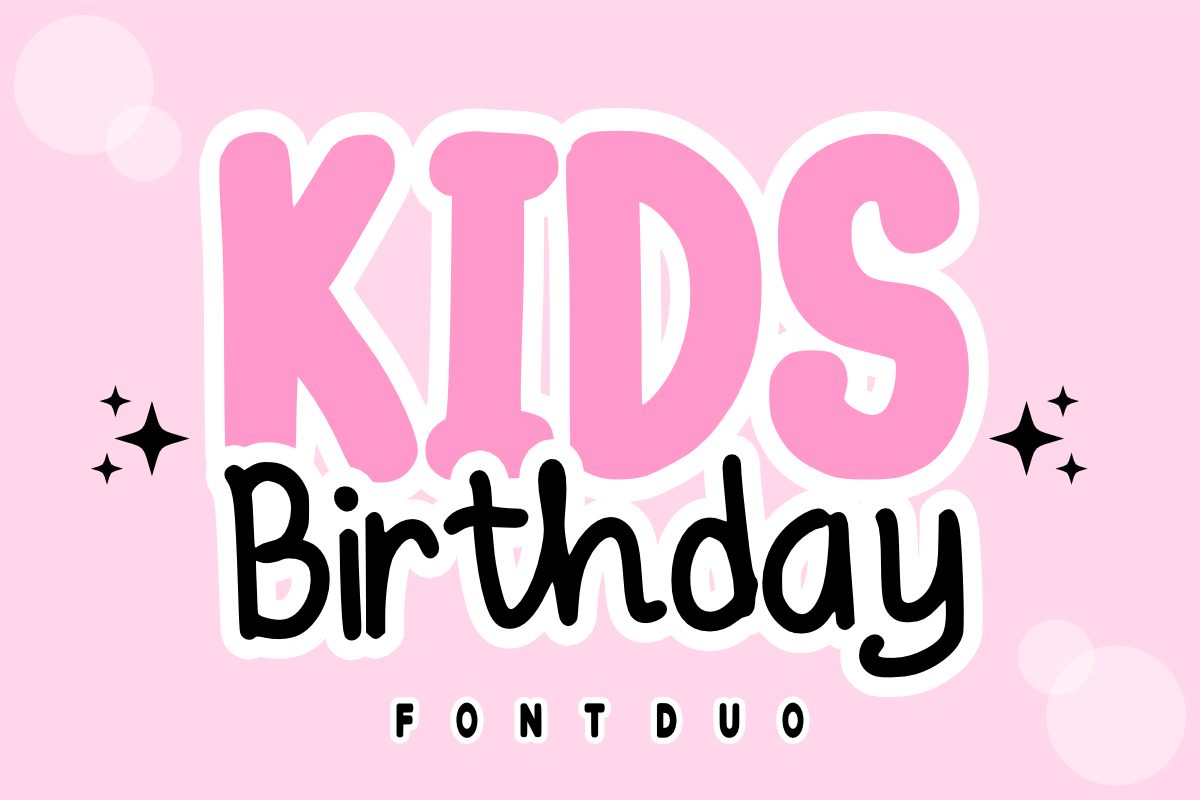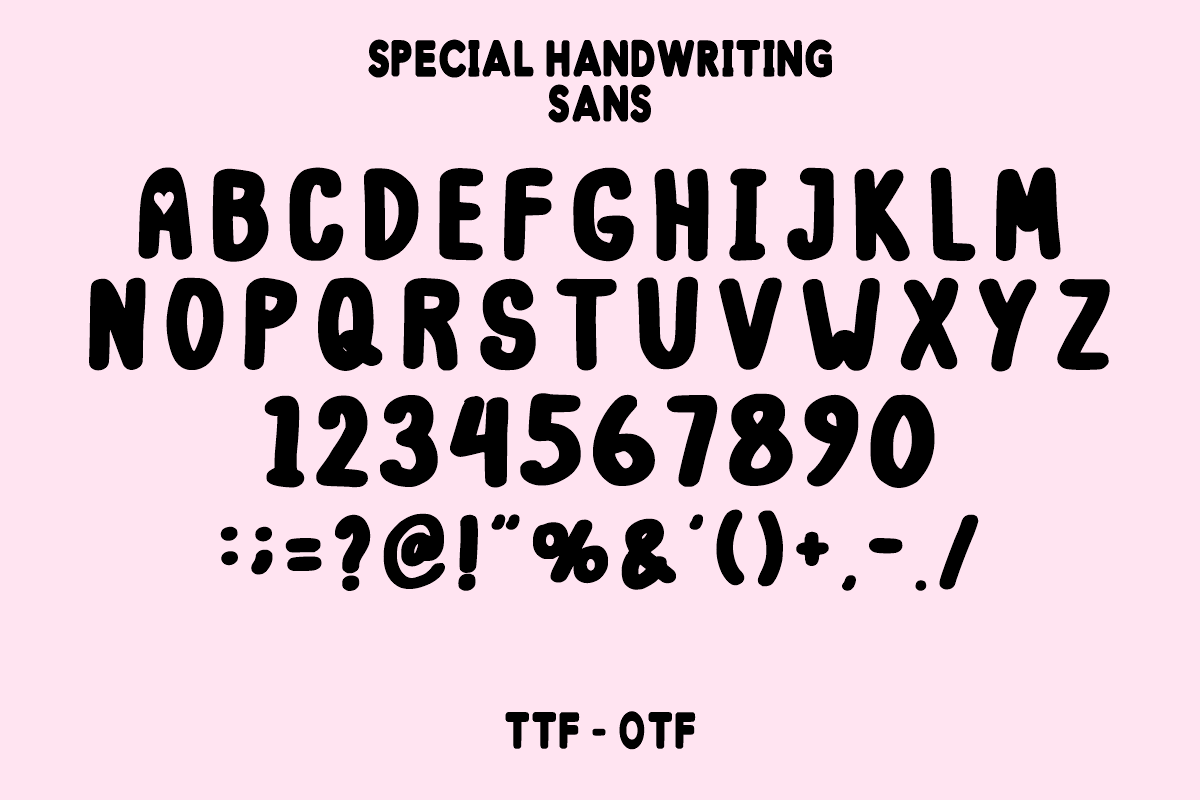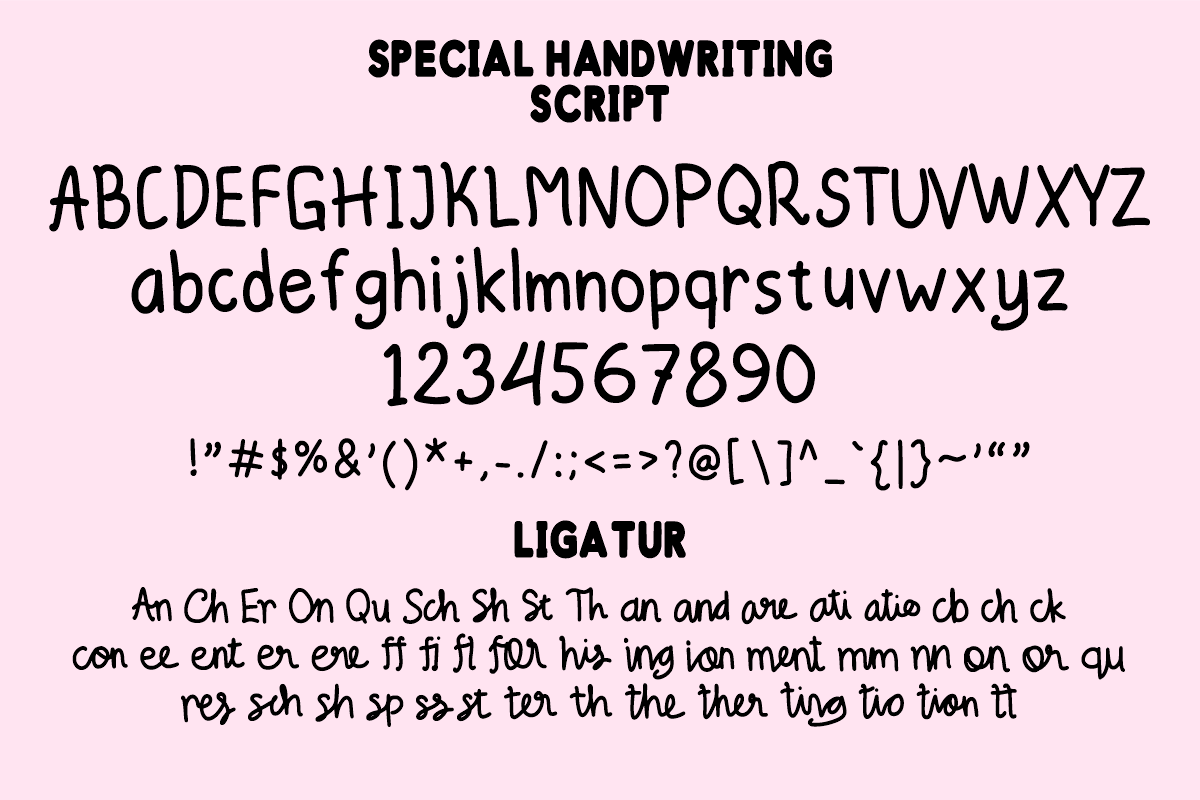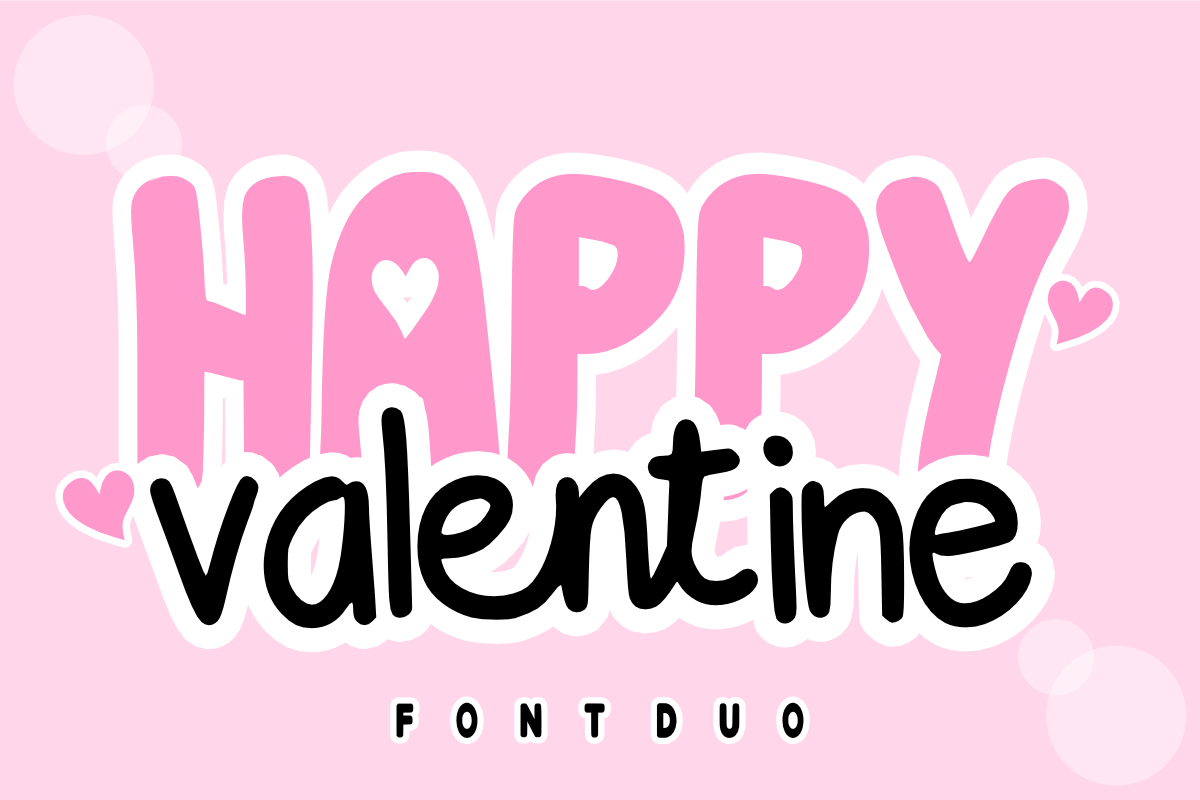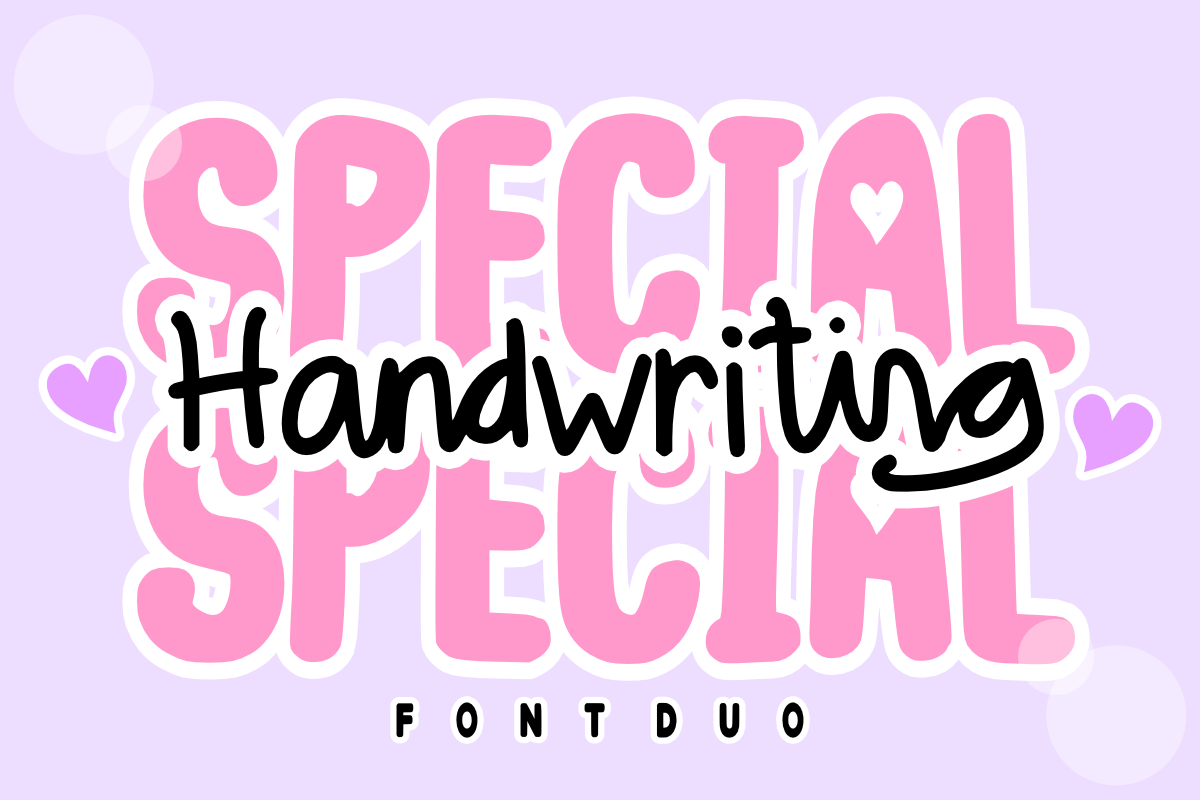
Special Handwriting -Modern Font Duo
Special Handwriting – A Playful & Modern Font Duo ✨💖
The perfect pairing for your most creative and heartfelt designs!
Special Handwriting is a versatile font duo that combines a bold, bubbly display font with a graceful, flowing handwritten script. This duo is specifically crafted to provide a stunning contrast—the chunky uppercase letters offer high-impact visibility, while the elegant script with its smooth ligatures adds a personal, sophisticated touch. Whether you're aiming for a playful vibe or a chic, modern aesthetic, this duo works in perfect harmony.
🌟 Why This Duo is a Must-Have:
Perfectly Balanced Contrast: Save time searching for font pairings; we’ve done the work for you with a bold bubbly style and a delicate script.
Seamless Flow: The script font includes elegant ligatures that mimic real handwriting for an organic, high-end feel.
Highly Versatile: Easily switch between a fun, youthful look and a professional, trendy brand identity.
🎨 Perfect For:
🛍️ Branding & Logos: Create standout visual identities for boutiques, cafes, or handmade businesses.
📱 Social Media & Content: Perfect for eye-catching Instagram quotes, TikTok overlays, and YouTube thumbnails.
👕 Merchandise & Apparel: Ideal for trendy t-shirt slogans, tote bags, and custom vinyl stickers.
💌 Stationery & Events: Beautiful for wedding invitations, greeting cards, and personalized planners.
🍎 Education & Crafts: Engaging headers for worksheets, classroom decor, and DIY craft projects.
Two Unique Styles: Bold Bubbly Uppercase & Elegant Script with Ligatures.
Comprehensive Set: Numbers and essential simple symbols included for both styles.